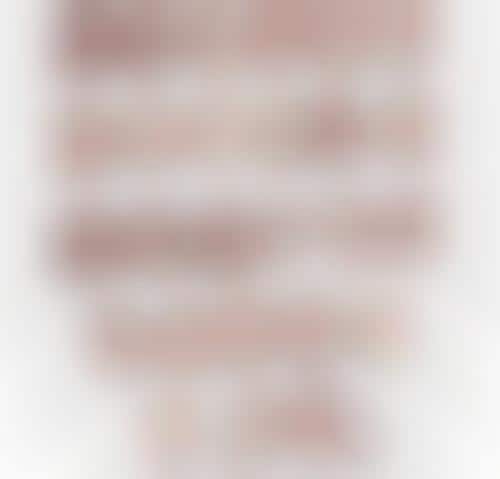
The beard font is what happens when nerdy and hairy graphic designers get drunk and/or bored.
With the many mundane details of designing fonts, it’s no surprise that a font designer would find time to make such a silly typesetting. Unfortunately, the font isn’t especially easy to read, and some of the letters (we’re thinking p) are pushing the beard possibilities.
The beard font seems like something that could only be dreamed up by someone who regularly plays Magic the Gathering.